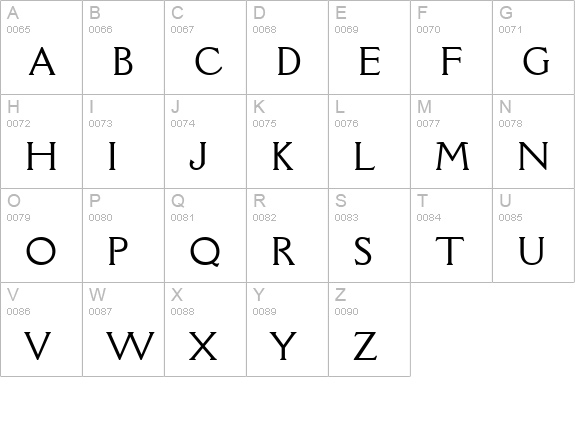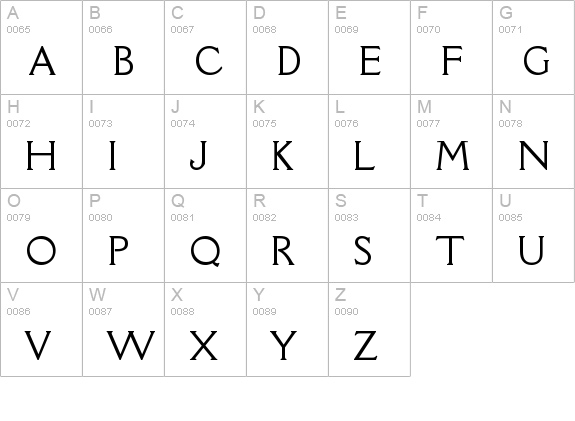
Rory Normal is the standard, neutral variant in the Rory typeface family \xE2\x80\x94 well suited to general body text, paragraphs, and standard typographic work.
Rory Normal font is a versatile and modern typeface that is perfect for both digital and print projects. With its clean lines and classic design, Rory Normal is sure to add a touch of sophistication to any design. Whether you are working on a website, poster, or branding project, this font will help you achieve a professional and polished look. The best part? Rory Normal is completely free to download at FontsMarket.com. So go ahead and elevate your design projects with this elegant and timeless font today!